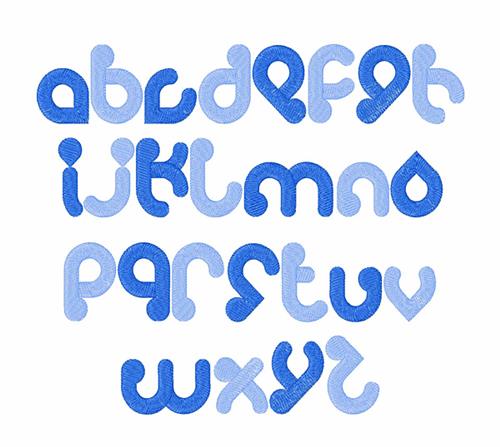
Embroidery Patterns is happy to present Water Drop Font Embroidery Font - Decorative Fill Lettering - PES, DST & 11 formats machine embroidery font which has Decorative machine embroidery font with rounded shapes and playful water droplet designs, ideal for baby items and nursery decor. Available in PES, DST, and 11 other formats. included. If you would like to view more embroidery fonts and alphabets please search our embroidery fonts page.
Water Drop Font Embroidery Font - Decorative Fill Lettering - PES, DST & 11 formats